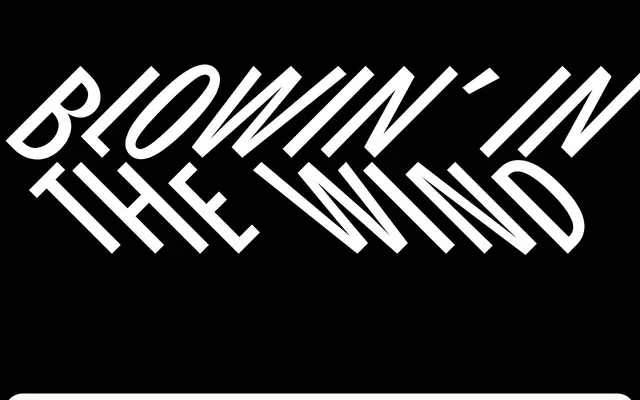
Bourrasque
Bureau Brut · Yoann Minet · 2018
Bourrasque specimen from Bureau Brut
A three-style display family by Yoann Minet built around a 45° slant, using a hybrid italic-rotalic technique where individual strokes tilt independently along a shared baseline.
Designed in 2014 and published by Bureau Brut in 2018, Bourrasque extends earlier research into extreme angles begun with Ostia Antica, itself already slanted at 35°. The family comprises three styles: a Regular and two 45° variants named Ouest and Est for their opposing directions of lean. Rather than rotating each glyph as a whole, every stroke is slanted independently while remaining anchored to the baseline, producing a kinetic visual energy that gives the family its name, a French word for a sudden gust of wind.
Bourrasque is a display typeface built around an extreme 45° slant, combining italic and rotalic principles where each stroke tilts independently rather than the whole glyph rotating. Its radical angle and conceptual underpinning place it firmly in the experimental display category.